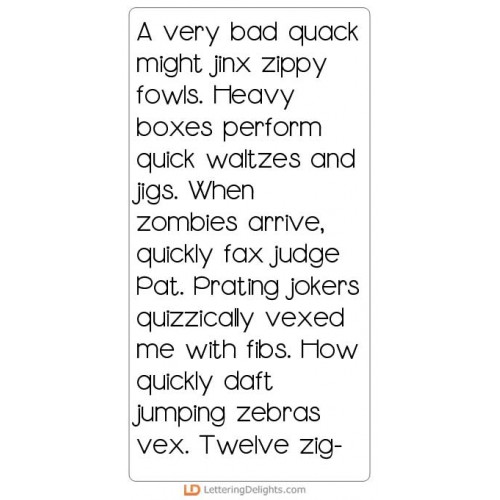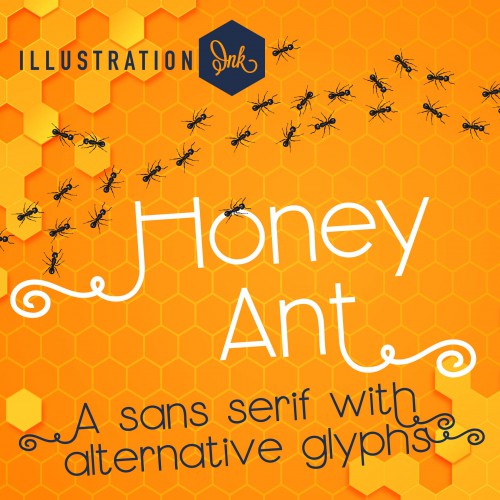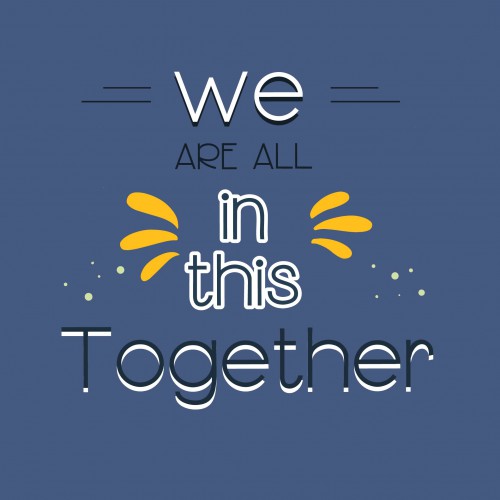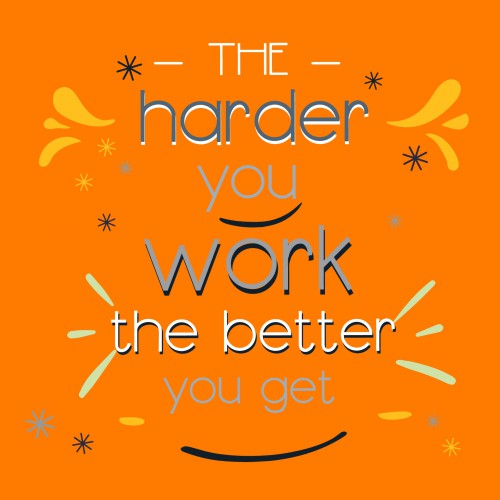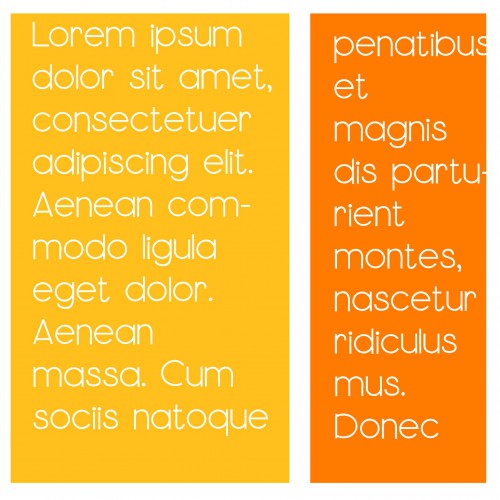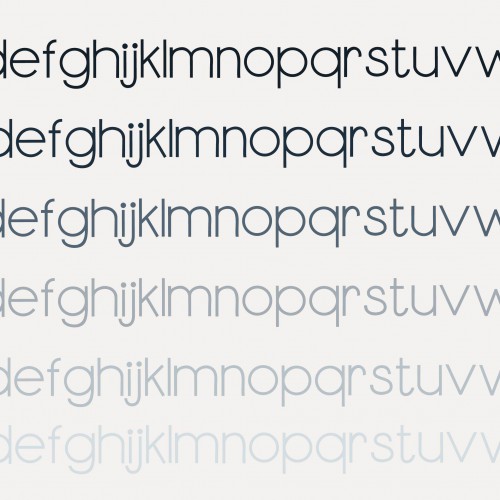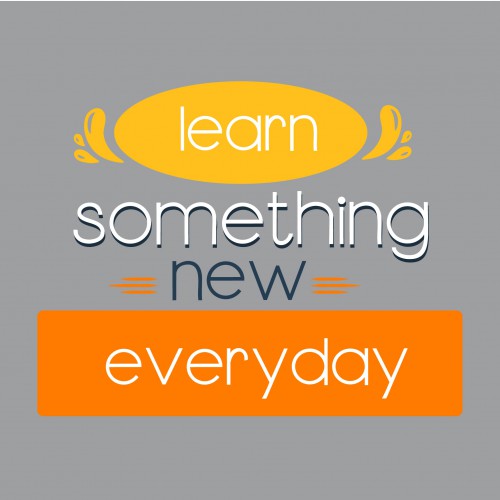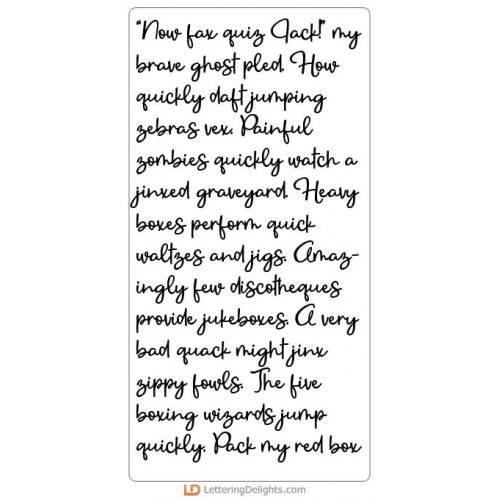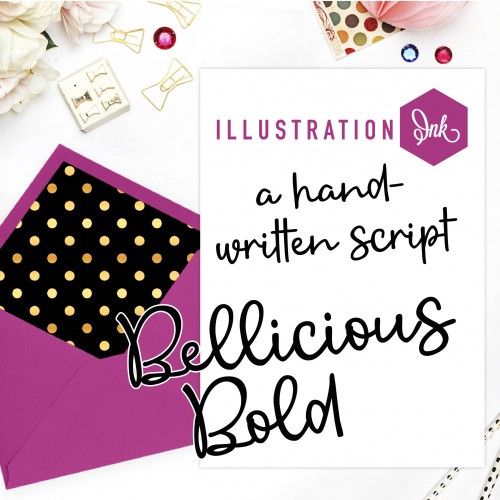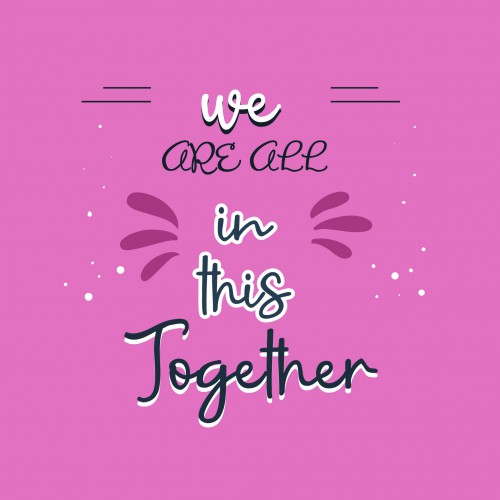
1. Hey Handsome - Big Bundle
This collection features handsome Dad items and hobbies, perfect for Father's Day, crafts, gifts, planner stickers, scrapbook pages and more!
PN Honey Ant - FN
This hand-crafted, sans seif has fun alternative stylistic glyphs available in your system's charact..
PN Honey Ant Lite - FN
This hand-crafted, sans seif has fun alternative stylistic glyphs available in your system's charact..
PN Beanieboy Bold - FN
This simple, hand-written sans has no descenders in the lowercase...
PN Beanieboy - FN
This simple, hand-written sans has no descenders in the lowercase...
PN Bellicious Bold - FN
This hand-written script is a pretty cursive with many uses...
PN Bellicious - FN
This hand-written script is a pretty cursive with many uses...
DB Hey Handsome - DB
This doodlebat font features 26 handsome Dad items, perfect for Father's Day, crafts, gifts, planner..
DB Hey Handsome - Hobbies - DB
This doodlebat font features 26 handsome Dad hobbies, perfect for Father's Day, crafts, gifts, plann..
Hey Handsome - GS
This graphic set features 26 handsome Dad items, perfect for Father's Day, crafts, gifts, planner st..
Hey Handsome - CS
This cuttable graphic set features 26 handsome Dad items, perfect for Father's Day, crafts, gifts, p..
Hey Handsome - Hobbies - GS
This graphic set features 26 handsome Dad hobbies, perfect for Father's Day, crafts, gifts, planner ..
Hey Handsome - Hobbies - CS
This cuttable graphic set features 26 handsome Dad hobbies, perfect for Father's Day, crafts, gifts,..
Hey Handsome - CP
Create fun Hey Handsome Dad Shirt cards and bags perfect for Father's Day!..
Hey Handsome - PP
This fun paper pack coordinates with our Hey Handsome Collection...
Hey Handsome - AL
This fun alphabet coordinates with our Hey Handsome Collection...